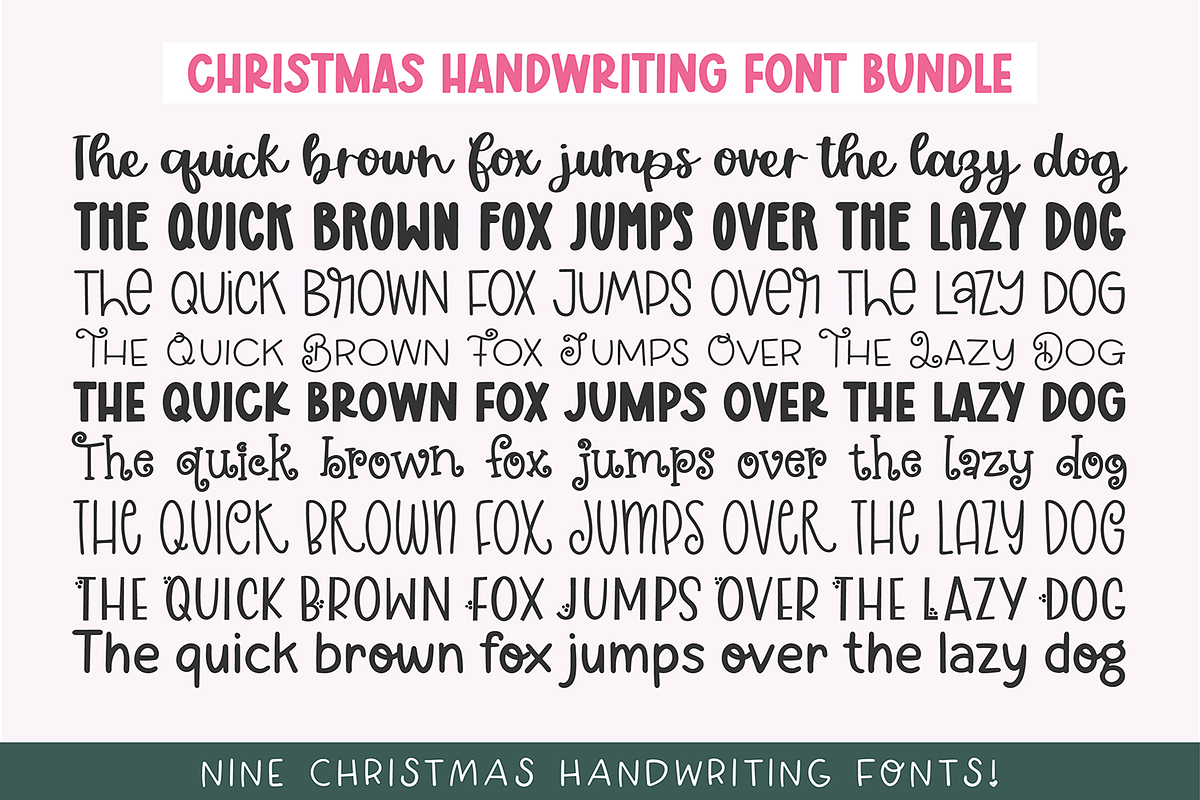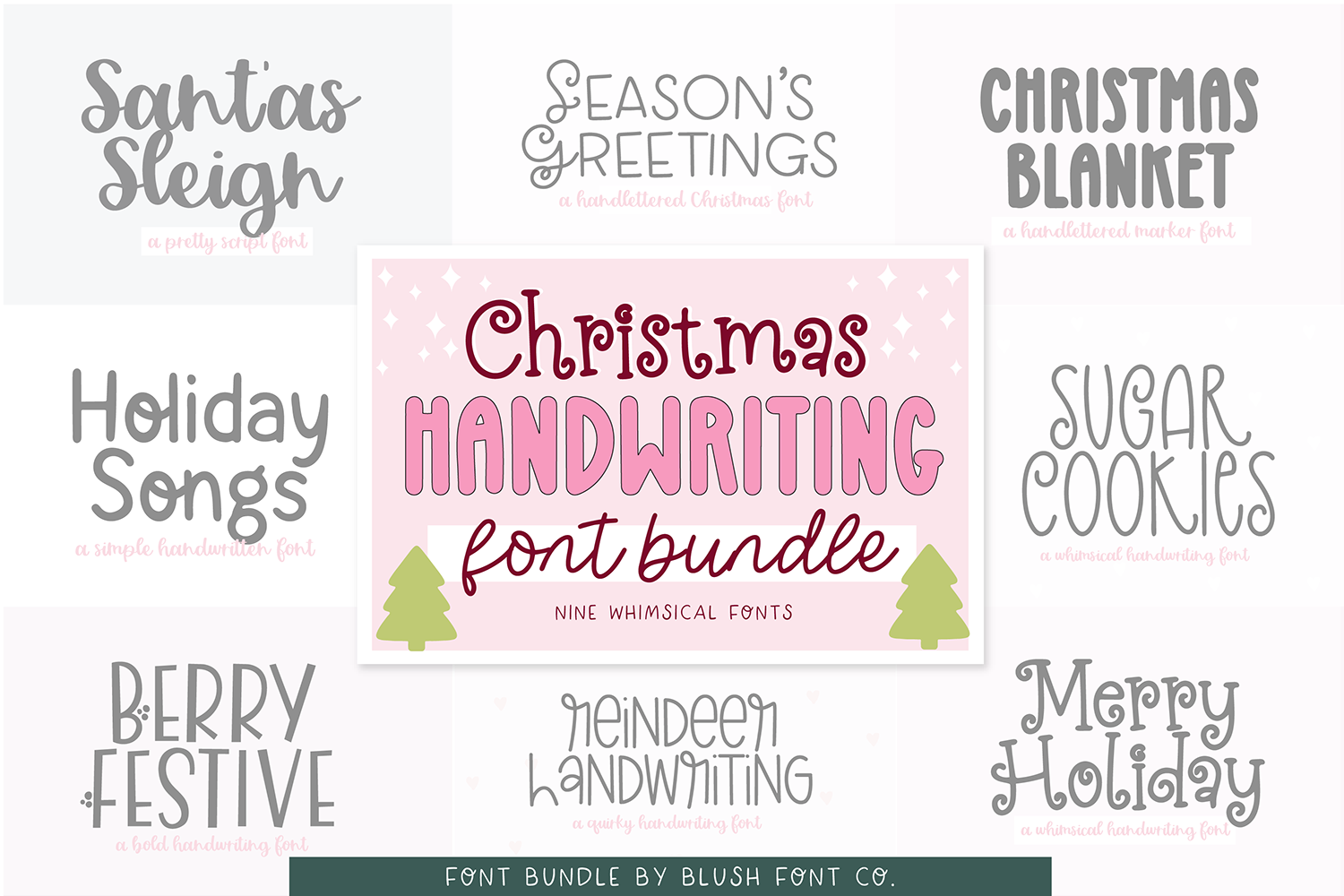
CHRISTMAS HANDWRITING FONT BUNDLE V1
CHRISTMAS NOTEBOOK HANDWRITING Font Bundle Vol. 1 - 9 fonts!
9 whimsical Christmas fonts made for note-taking.
Fonts Included: WINTER WISHES REINDEER HANDWRITING MERRY HOLIDAY BERRY FESTIVE SANTA'S SLEIGH CHRISTMAS BLANKET SEASONS GREETINGS HOLIDAY SONGS SUGAR COOKIES